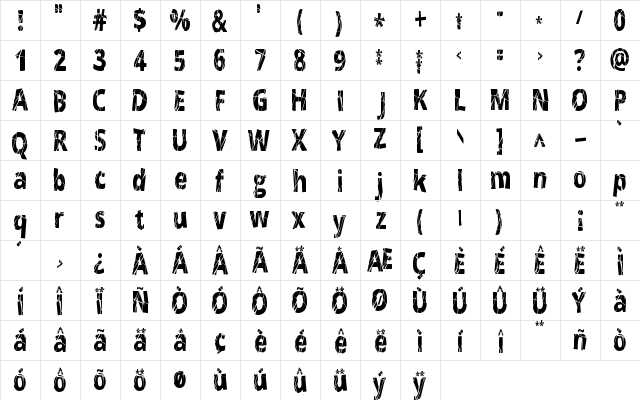
CrackedNarrow Regular
Design Context for CrackedNarrow Typeface
CrackedNarrow is a composed and adaptable typeface that performs quietly and consistently across a wide range of design contexts. Its narrow stance lets it pack a punch even in space-constrained designs.